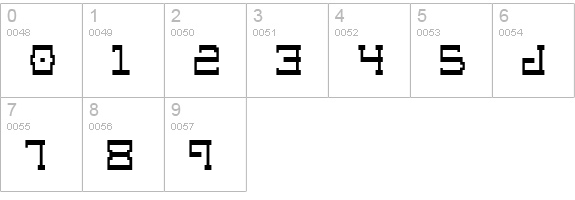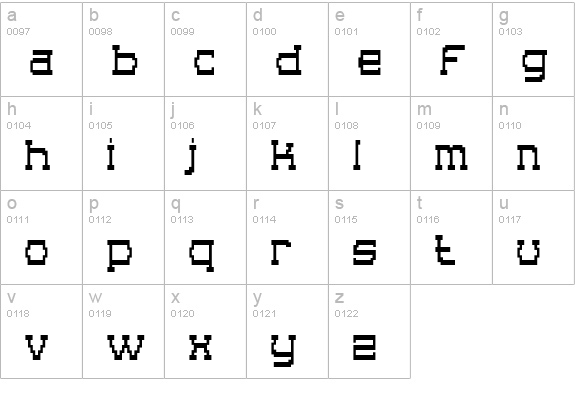
Superago Font Details
Introducing Superago font, a modern and sleek typeface designed to make a bold statement in any project. With its clean lines and contemporary feel, Superago is perfect for branding, advertising, and design projects that require a touch of sophistication. This versatile font is available in a range of weights and styles, making it easy to create eye-catching designs that stand out from the crowd. Whether you're working on a logo, website, or packaging design, Superago has you covered. Best of all, Superago is completely free to download at FontsMarket.com. So why wait? Add this stylish font to your collection today and elevate your designs to the next level.